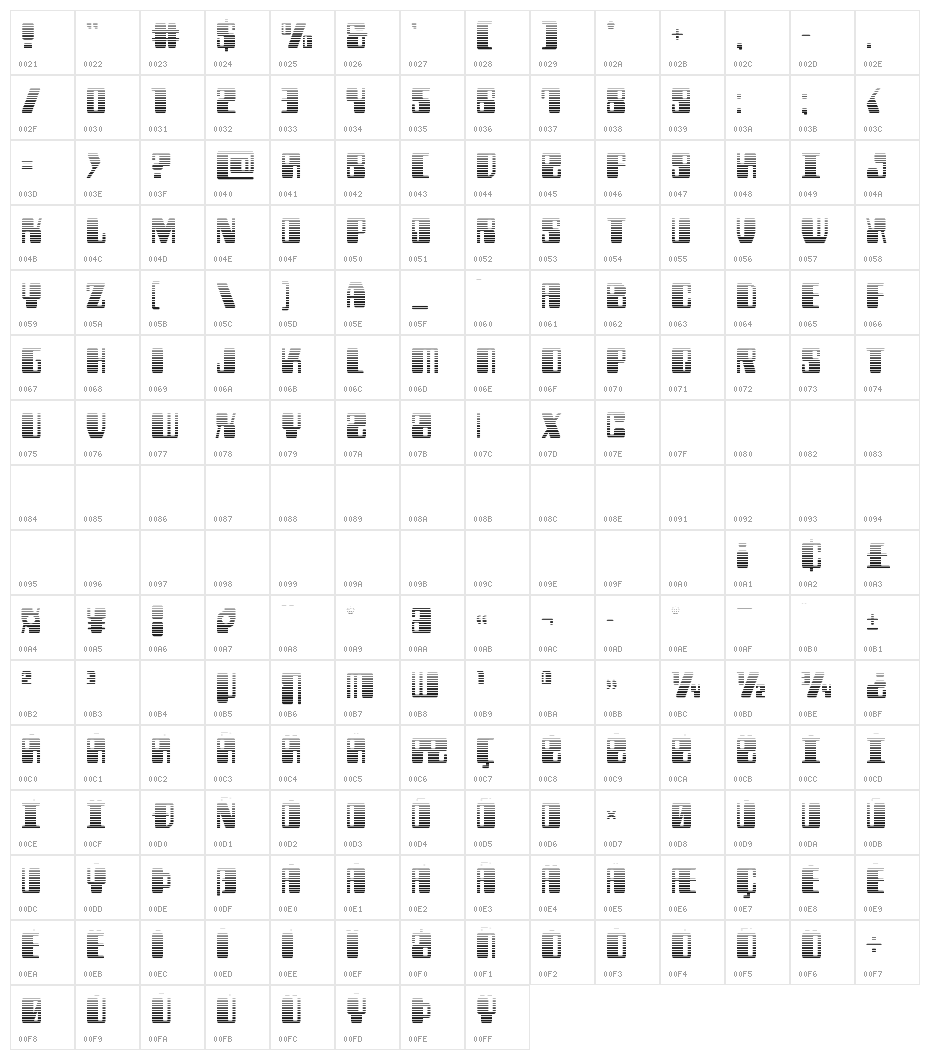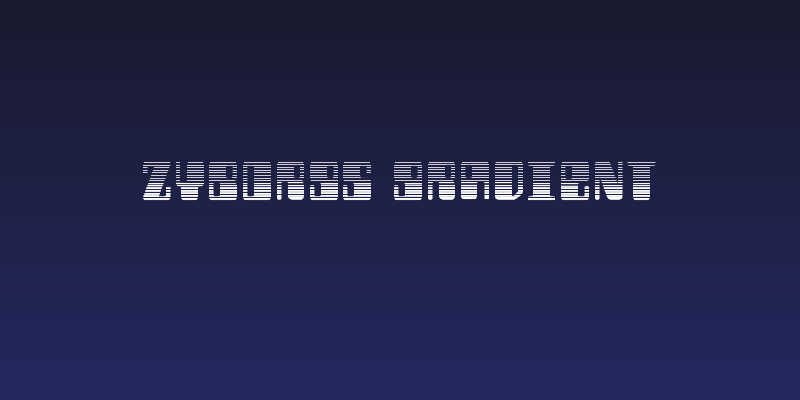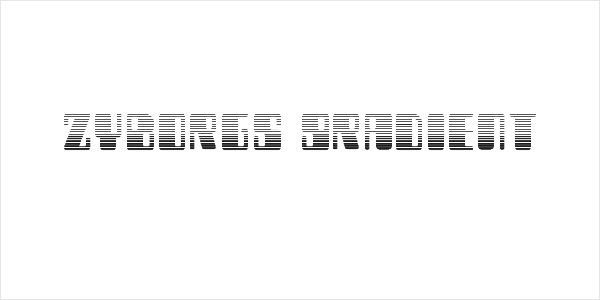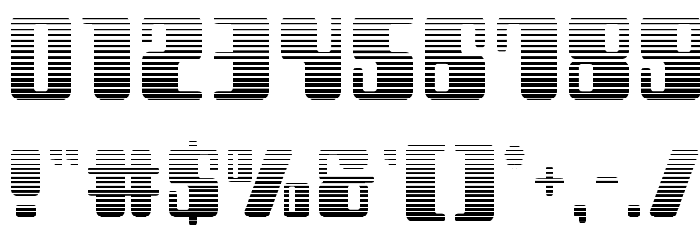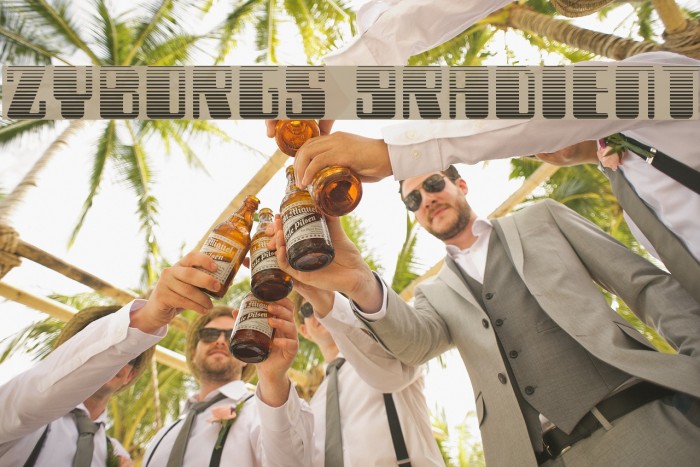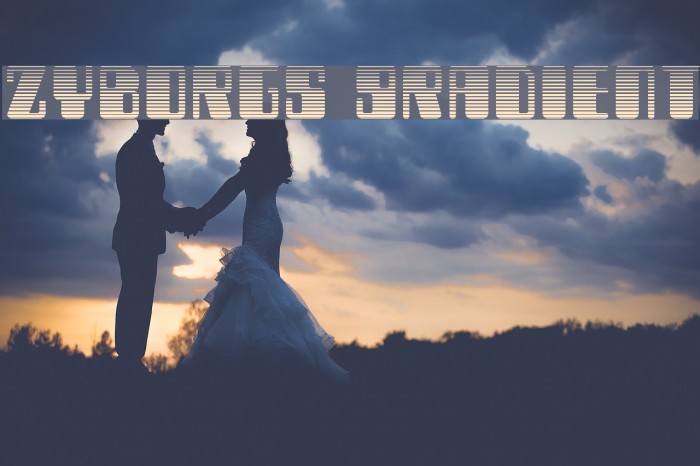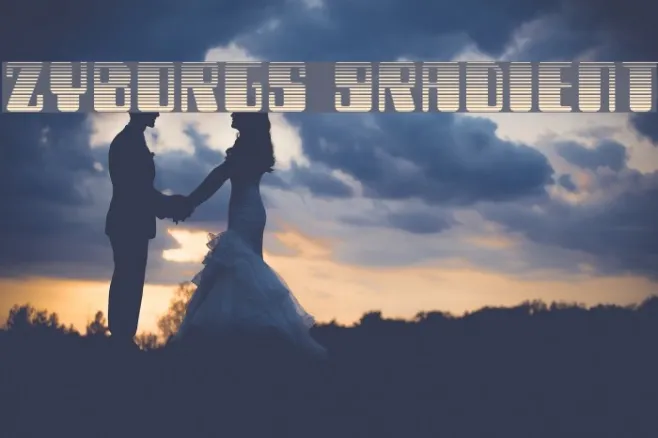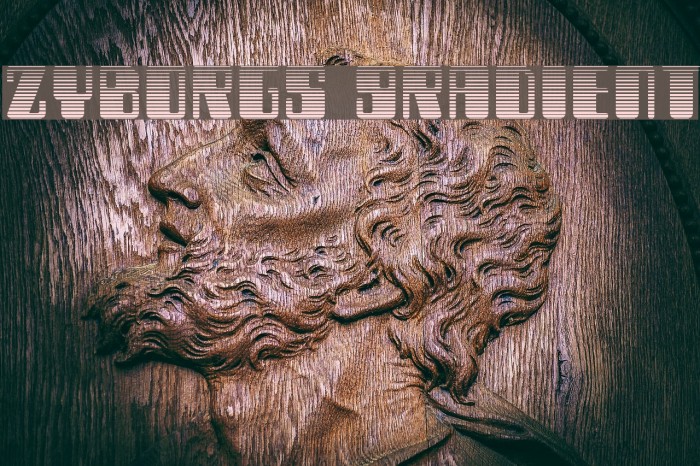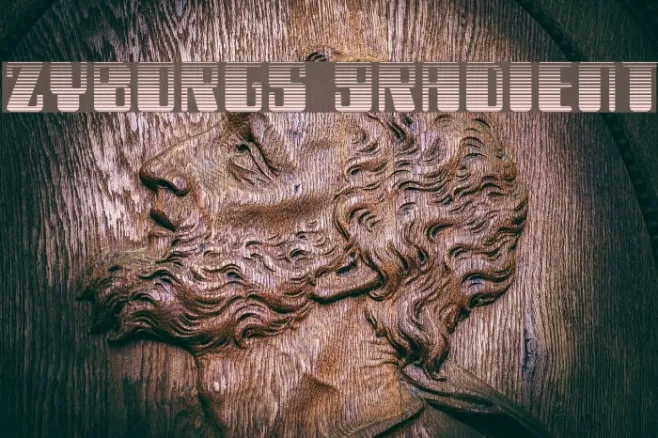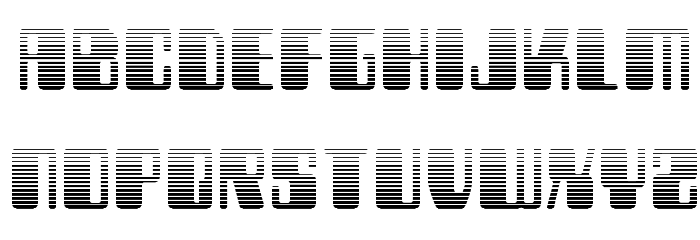
Zyborgs Gradient Font
Zyborgs Gradient Description
This font features a futuristic and digital aesthetic, characterized by its unique gradient effect created through horizontal lines. Each character is constructed with a series of parallel lines that vary in thickness, giving a sense of depth and movement. The design is bold and eye-catching, making it ideal for projects that require a modern and tech-savvy appearance. The uppercase and lowercase letters, along with numbers and special characters, maintain a consistent style that emphasizes uniformity and precision. The font's distinct look is both innovative and versatile, suitable for a variety of creative applications.
| Proposed Projects | Ideal for technology-themed designs, digital art, video game graphics, and modern branding projects. |